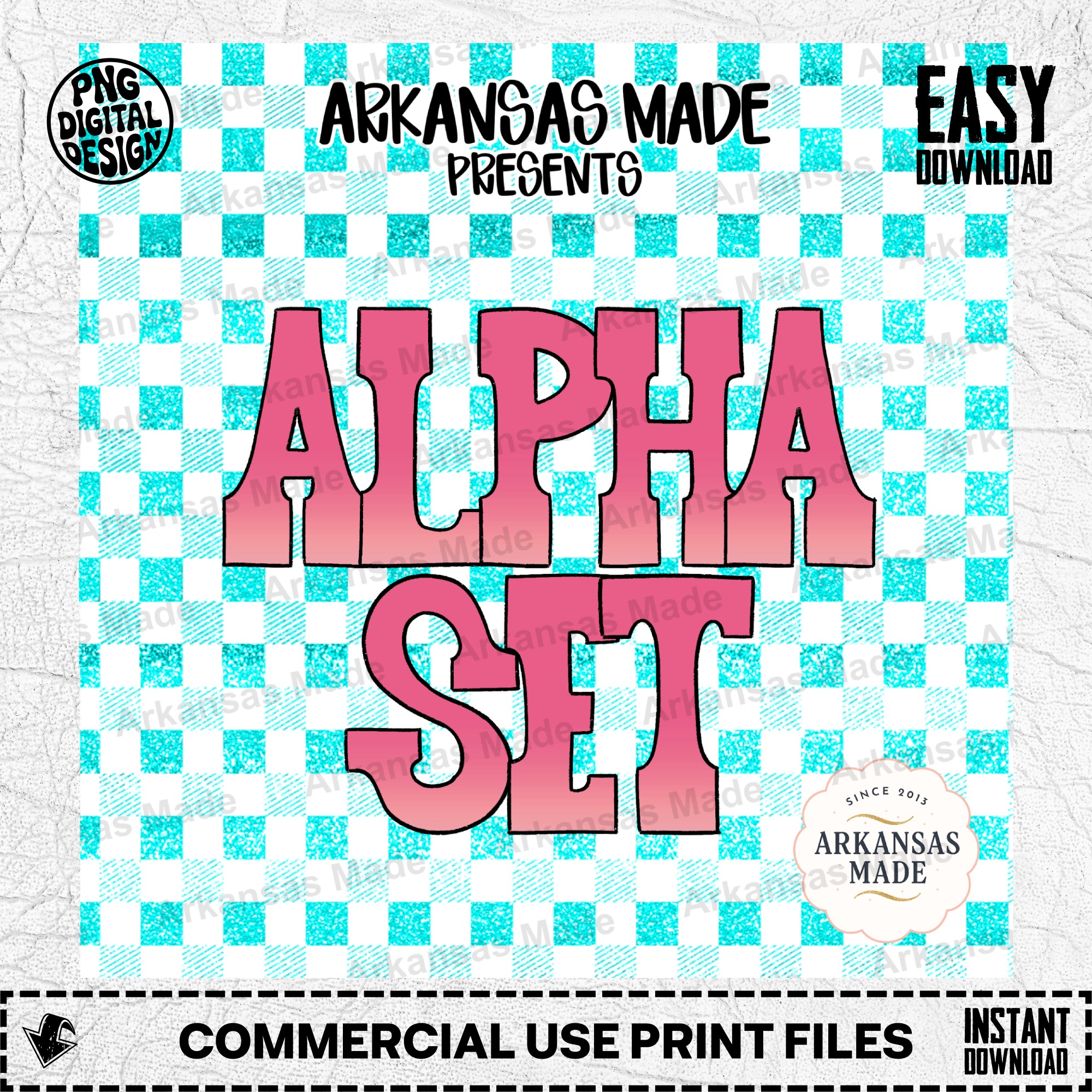
Pink Gradient Alpha PNGs, Chunky Letters Sublimation Font, Bubble Alphabet Digital Download for Crafters, Bold Design Elements for Custom
Dive into creativity with our Pink Gradient Alpha PNGs, a chunky bubble alphabet set perfect for vibrant sublimation and digital design projects. This playful and bold letter kit offers instant download convenience for crafters, graphic designers, and DIY enthusiasts. Elevate your custom t-shirts, party decorations, or scrapbook layouts with this eye-catching, preppy aesthetic font. It’s an excellent resource for anyone looking to add a touch of fun and personality to their creations or as a thoughtful gift for a creative friend.